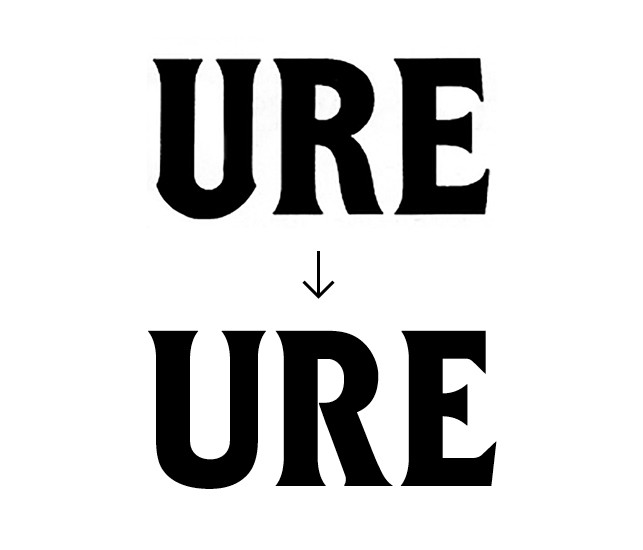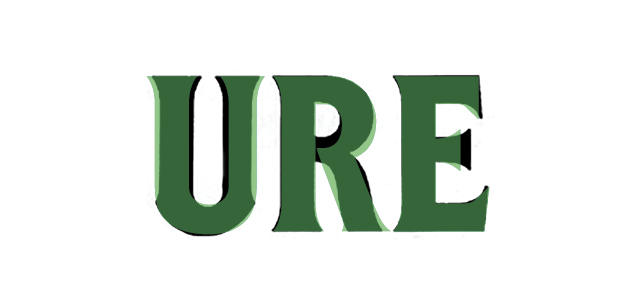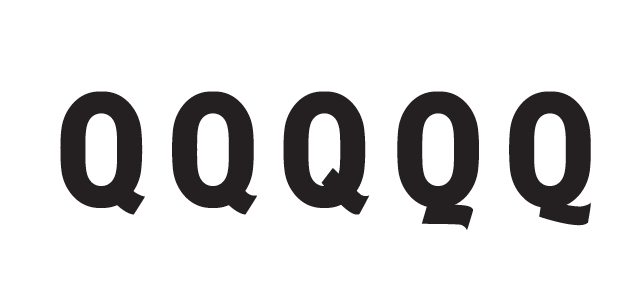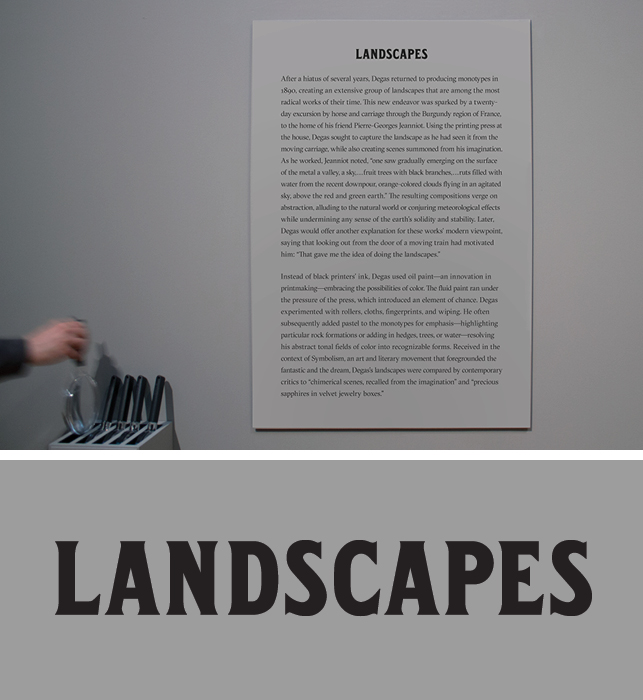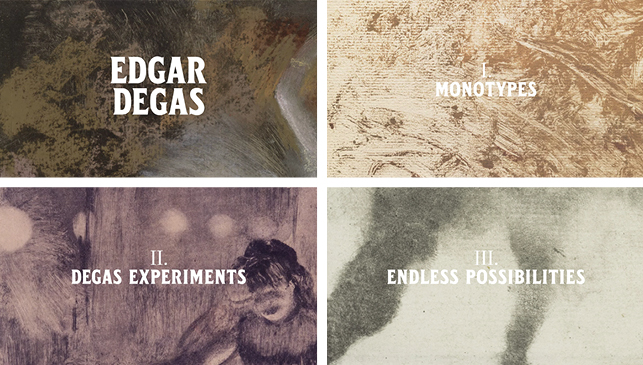
Title wall of Edgar Degas: A Strange New Beauty at The Museum of Modern Art. Photo: Vanessa Lam
Looking at the exhibition Edgar Degas: A Strange New Beauty, one can immediately sense how strikingly modern the artworks feel, even after 120 years. Organized by senior curator Jodi Hauptman and curatorial assistant Heidi Hirschl, the show features the artist’s experimental and radical works that have rarely been attached to the widely conceived notion of “Degas” (two words: pink tutus).
For the graphic design of this exhibition, I felt compelled to create a custom typeface that blended these two sensibilities—historical leanings infused with a contemporary bent. Glyphic serifs were especially interesting, as their flared serifs placed them somewhere in that delicate balance between a traditional serif and a modern sans. In researching, I was greatly inspired by an old French type specimen from the turn of the century, the same period when Degas was experimenting with his unorthodox monotypes.
Character specimens by foundry Deberny & Peignot. Source: Museum of Printing and Graphic Communication, Lyon, France
Though the example included only a handful of letters, it still served as an excellent starting point for creating a custom alphabet. The original font featured ornamental details that were verging on Art Nouveau, which were too dated looking for our purposes. I decided to keep the basic proportions of the original letters, but pare them down.
Top: Original inspiration; Bottom: Custom typeface
This included straightening out and simplifying aspects of the typeface that were perhaps too decorative. We didn’t want a typeface that was too frilly or soft, and it was important to maintain a bold and almost aggressive feel that could speak to the “strange new” spirit of the show. Below you can see the comparison of the inspiration image and the redrawn typeface.
Overlay of the original source inspiration with the new custom typeface
Letter explorations and variations
After many tests and tweaks, I arrived at a finished product that felt like it spoke to the dark forms in the exhibition and also straddled the ambiguous line between old and new. It was historically inspired but not historical, which was essential in reflecting the ways that Degas approached, questioned, and pushed the conventions of his time.
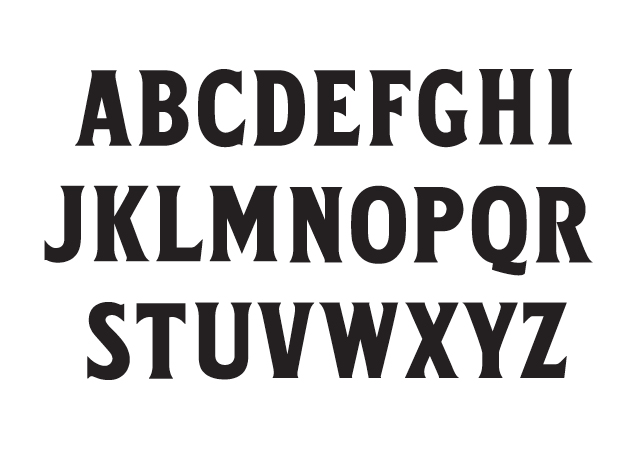
The finished typeface
Exhibition title wall. Photo: Vanessa Lam
Custom typeface in use inside the exhibition galleries. Photo: Vanessa Lam
Custom typeface used on title cards for the Degas video produced by the MoMA Digital Media team.